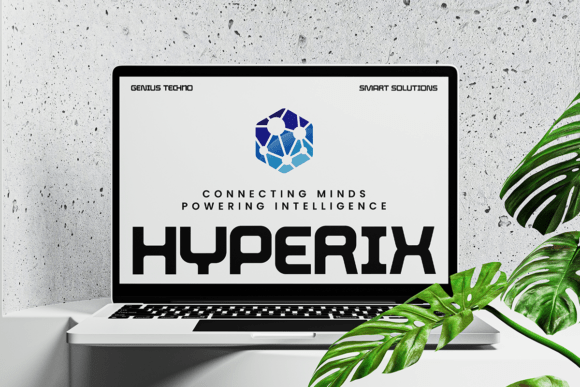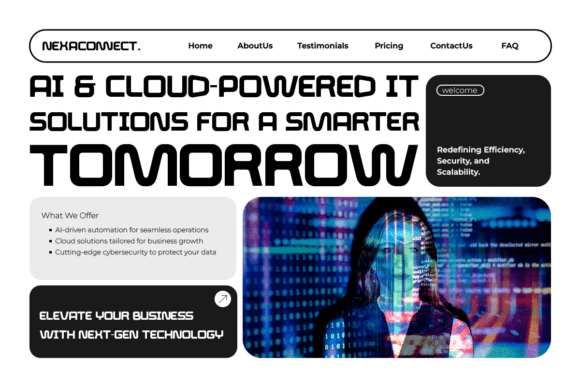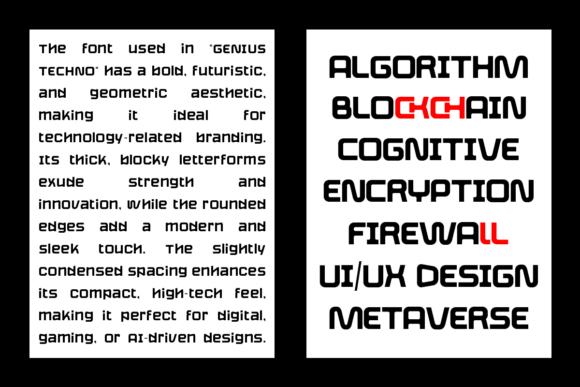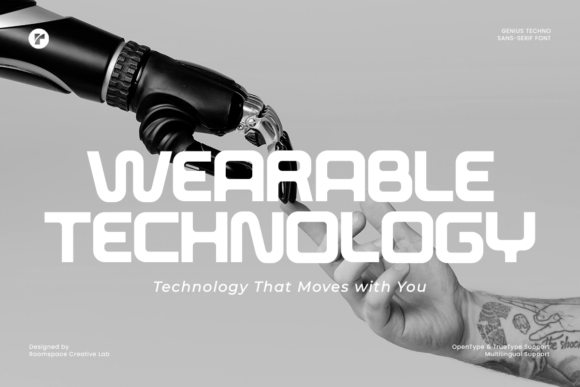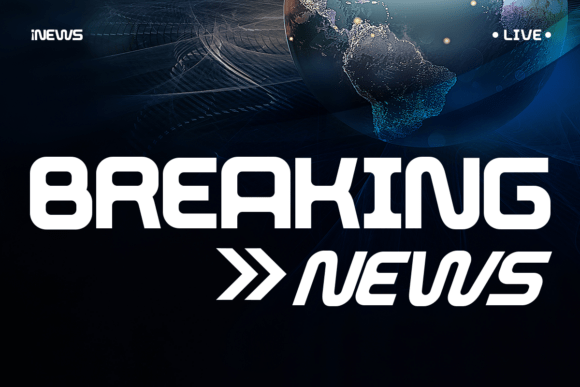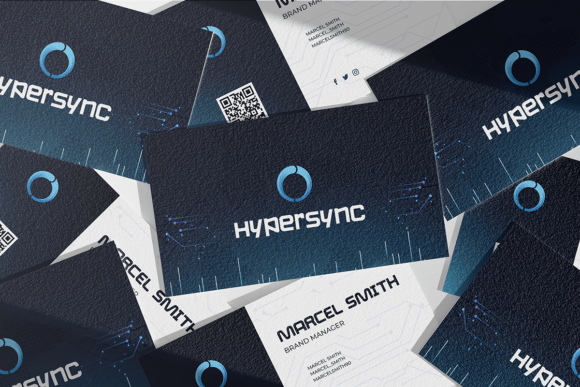
Genius Techno Font: Elevate Your Designs with a Futuristic Twist
In the realm of typography, few fonts manage to capture the essence of modern technology and innovation as effectively as the Genius Techno Font. This cutting-edge, modern futuristic typeface is specifically designed to embody the sleek aesthetics of technology, making it an ideal choice for brands, UI/UX designers, gaming projects, sci-fi enthusiasts, and anyone looking to infuse their designs with a futuristic vibe.
The Design Philosophy Behind Genius Techno
Genius Techno Font is crafted with a clear vision: to provide a typeface that is not only visually striking but also versatile and highly legible. Its design combines bold geometric structures with rounded edges, creating a harmonious balance between sharpness and softness. This unique blend results in a font that exudes a tech-inspired look, perfect for projects that demand a modern and forward-thinking aesthetic.
Key Features of Genius Techno Font
- Bold Geometric Structures: The font’s geometric approach ensures that each letter stands out with a strong presence, making it highly readable even at smaller sizes.
- Rounded Edges: The subtle rounding of edges adds a touch of softness to the otherwise sharp geometric shapes, providing a friendly and approachable feel to the font.
- Tech-Inspired Look: Every aspect of the Genius Techno Font, from its letterforms to its spacing, is designed to evoke a sense of technology and innovation.
- Versatility: Whether it’s for digital platforms, print materials, or any other medium, Genius Techno Font adapts seamlessly, ensuring your message is conveyed with clarity and style.
Applications of Genius Techno Font
The versatility of Genius Techno Font makes it suitable for a wide range of applications. Here are some of the areas where this font truly shines:
- Branding: For companies looking to project a modern, innovative image, Genius Techno Font offers a typographic solution that is both distinctive and memorable.
- UI/UX Design: In the world of user interface and user experience design, typography plays a crucial role. Genius Techno Font, with its clarity and tech-savvy appearance, enhances user engagement and satisfaction.
- Gaming: The gaming industry, especially those games set in sci-fi or futuristic worlds, benefits greatly from fonts that can convey a sense of advanced technology and excitement. Genius Techno Font fits the bill perfectly.
- Sci-Fi Projects: For filmmakers, writers, and artists working on sci-fi projects, this font provides an authentic futuristic look that can add depth and realism to their work.
- Futuristic Branding: Any project aiming to highlight innovation, forward-thinking, and cutting-edge technology can leverage Genius Techno Font to communicate these values effectively.
Why Choose Genius Techno Font?
In a market flooded with typefaces, Genius Techno Font stands out for several reasons:
- Uniqueness: It offers a fresh take on modern typography, making it a great choice for projects that need to stand out.
- Legibility: Despite its futuristic design, the font maintains high legibility across various sizes and mediums.
- Customizability: Designed to be versatile, it can be adjusted to fit the specific needs of your project, from color schemes to potential modifications.
Genius Techno Font is more than just a typeface; it’s a design statement. It speaks to those who are passionate about technology, innovation, and the future. By incorporating this font into your designs, you’re not just choosing a font; you’re embracing a vision of what’s to come. Whether you’re a designer, a brand, or a creator, Genius Techno Font offers a unique opportunity to elevate your work and make it distinctly futuristic. Dive into the world of cutting-edge typography and let Genius Techno Font be the voice of your innovative spirit.